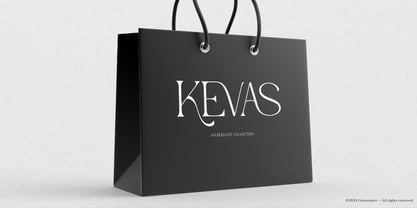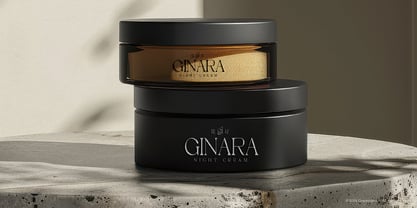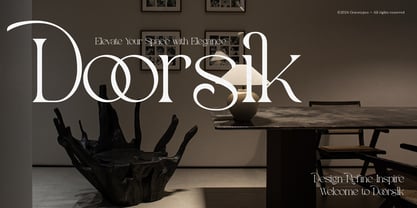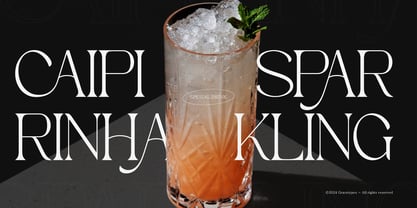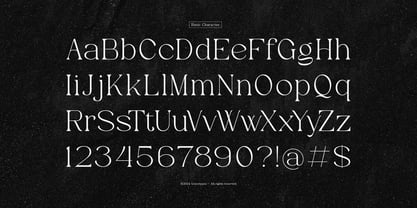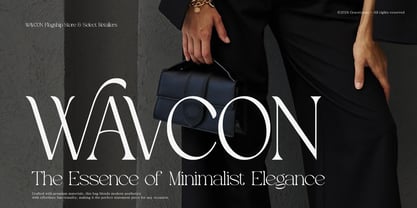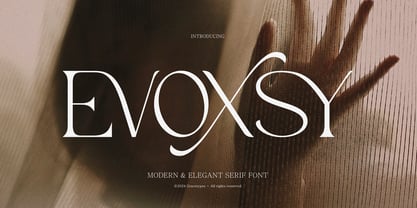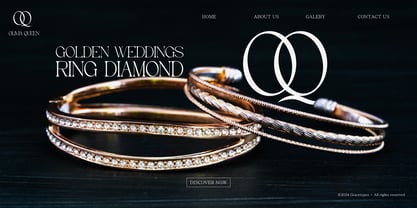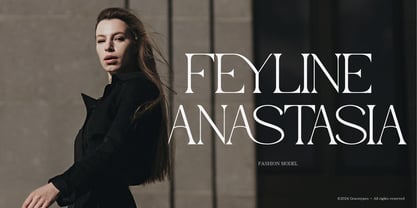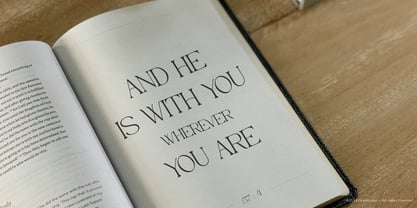
Evoxsy
by Tini Fitriani
The Evoxsy Font Family was designed by and published by Tini Fitriani. Evoxsy contains 2 styles and family package options. More about this family
Evoxsy | Elegant Serif, from Gracetypestudio, suitable for any projects such as: logos, branding projects, homeware designs, product packaging, mugs, quotes, posters, shopping bags, t-shirts, book covers, name card, invitation cards, greeting cards, label, photography, watermark, special events, and all your other lovely projects that need a Elegant Serif taste.